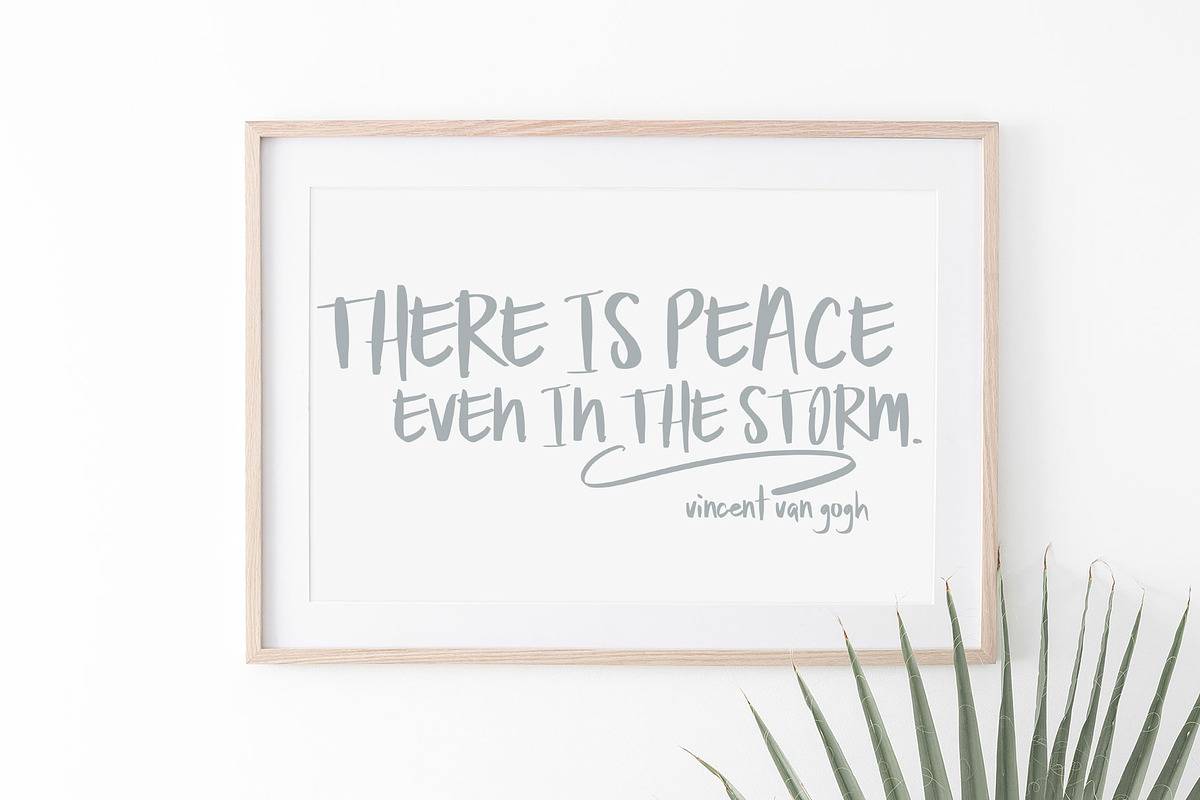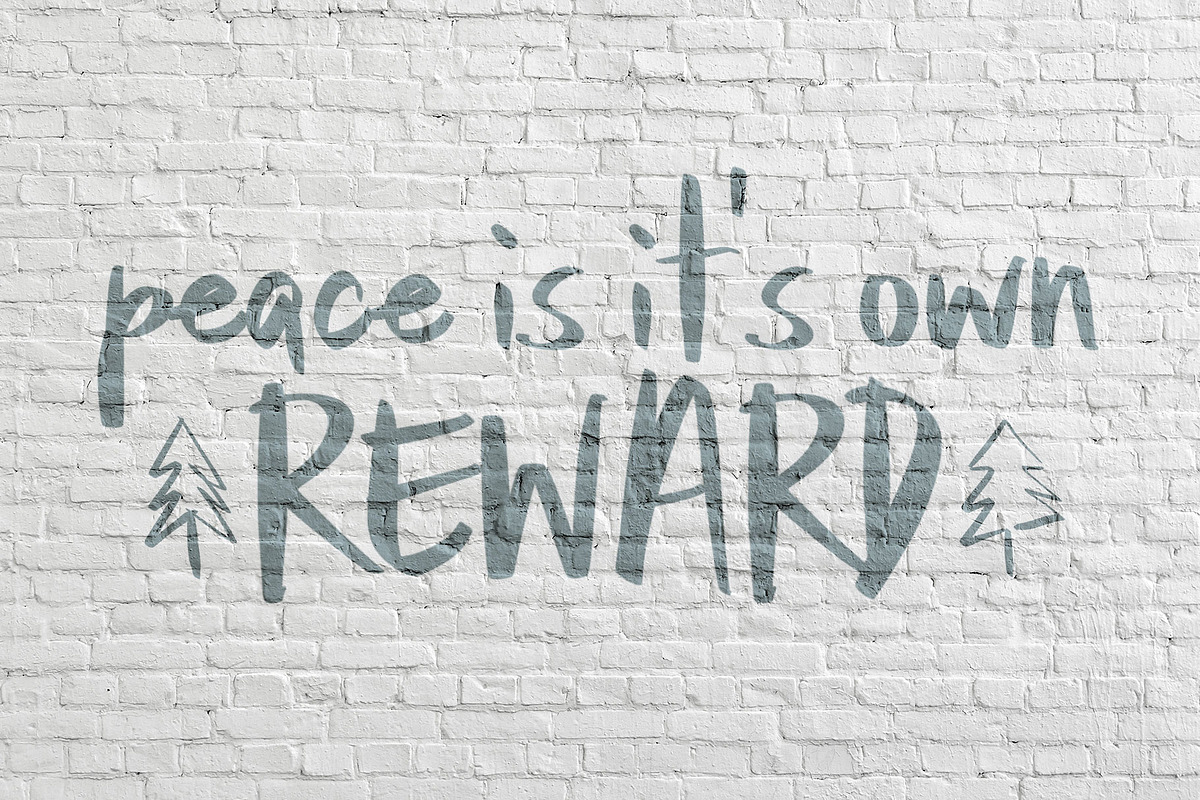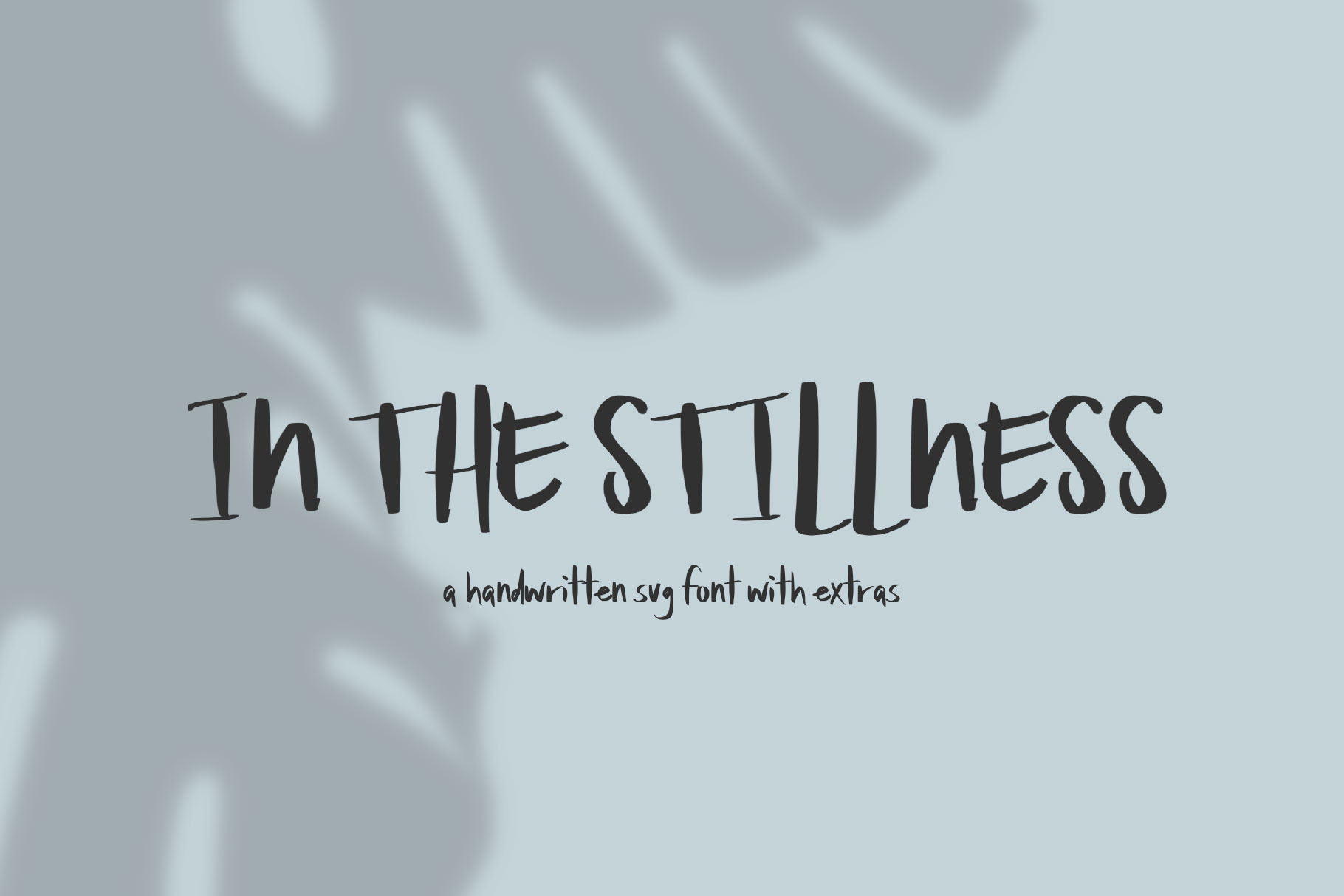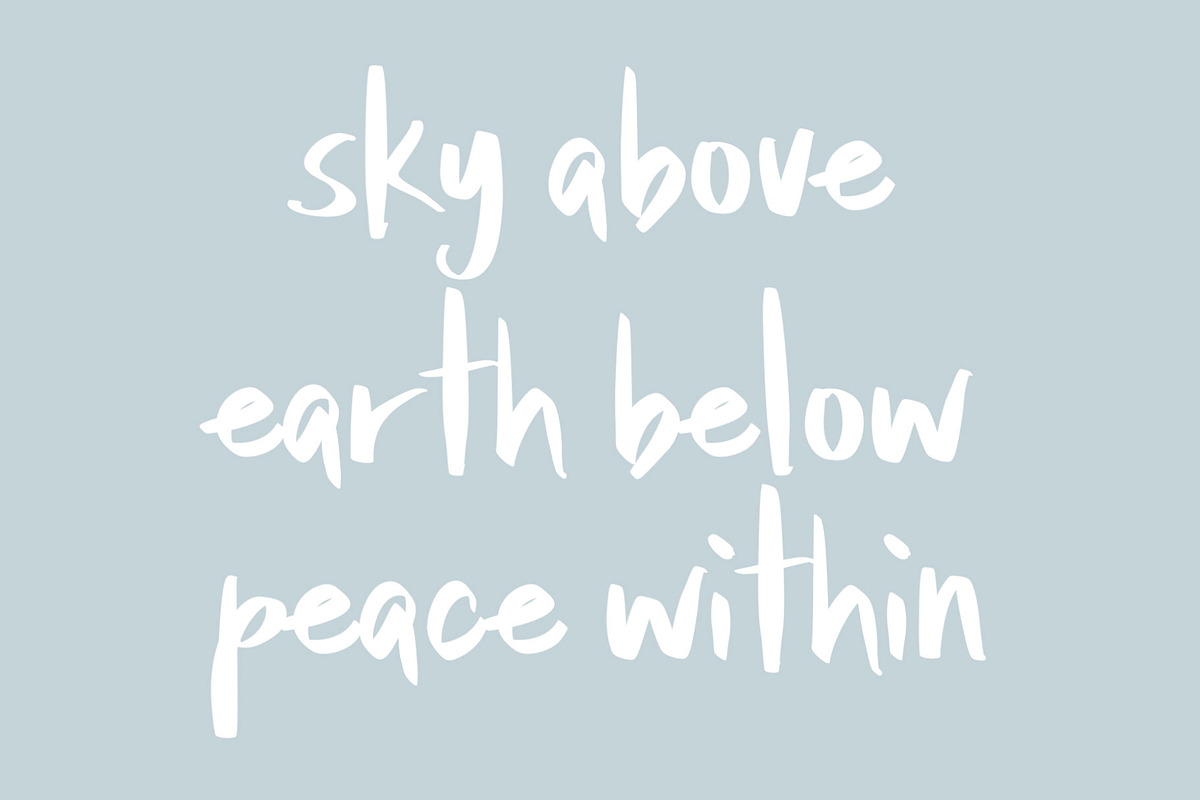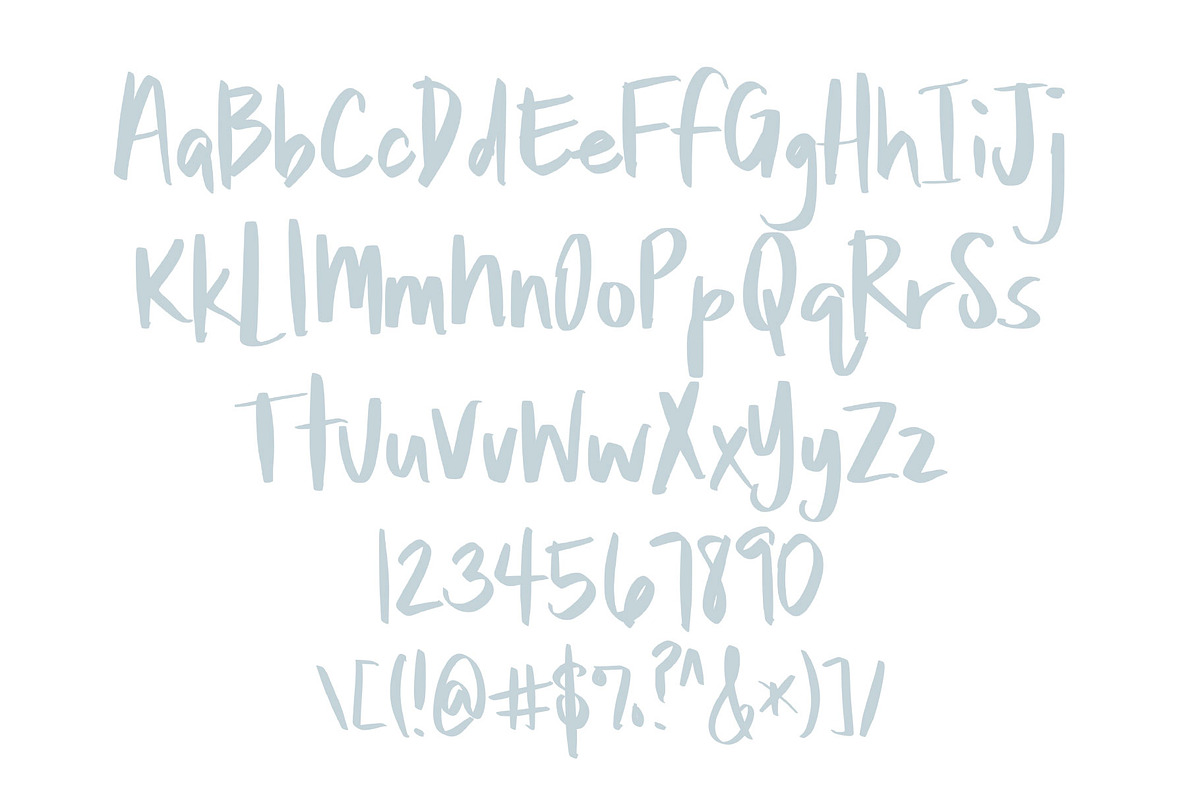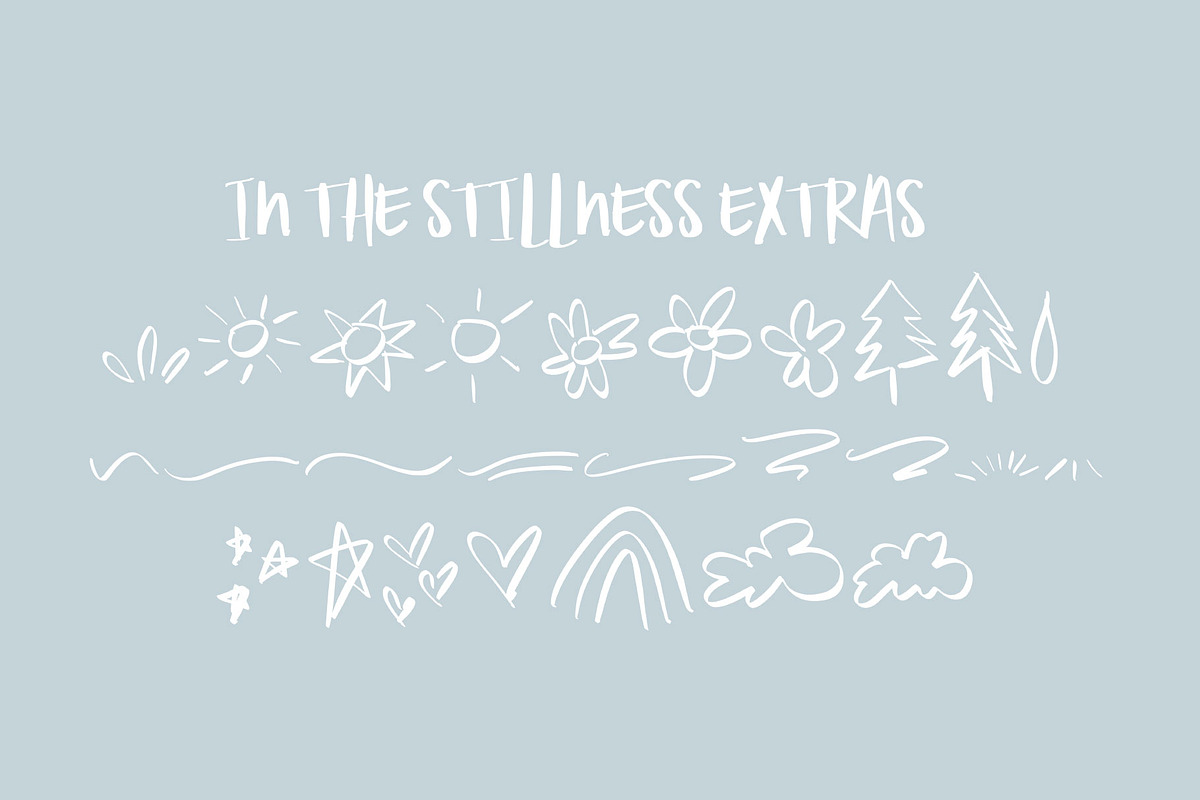
In The Stillness Handwritten font
In The Stillness
A quiet and subtle open type SVG font from dodidoodles. This handwritten font is upper and lowercase and can easily be used for quick projects or modern branding. With your purchase, enjoy In The Stillness Extras-26 coordinating characters to compliment your designs.